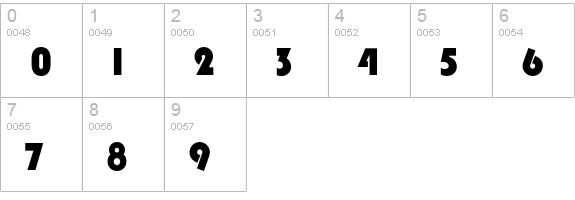
BlippoBlackEF Font Details
BlippoBlackEF is a bold and eye-catching display font that commands attention with its unique and playful design. This font exudes a sense of fun and modernity, making it perfect for a variety of creative projects. Its thick strokes and rounded edges give it a friendly and approachable look that is sure to stand out. Best of all, BlippoBlackEF is available for free download at FontsMarket.com. This means you can easily incorporate this dynamic font into your designs without any cost. Whether you're working on a poster, logo, or any other project that needs a touch of personality, BlippoBlackEF is a fantastic choice that won't break the bank. Download it today and let your creativity shine with this versatile and engaging font.